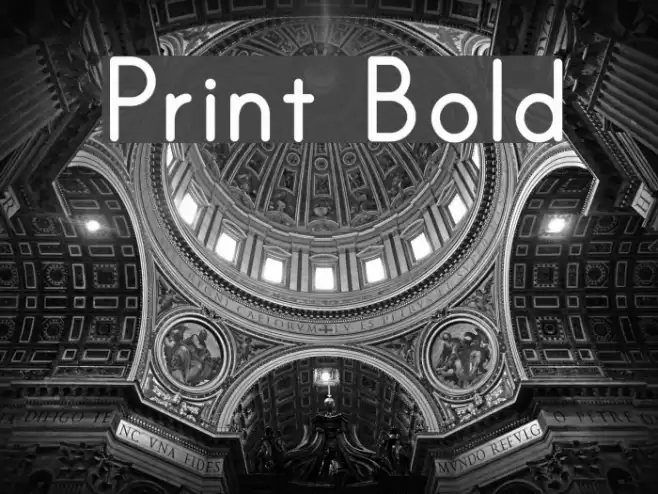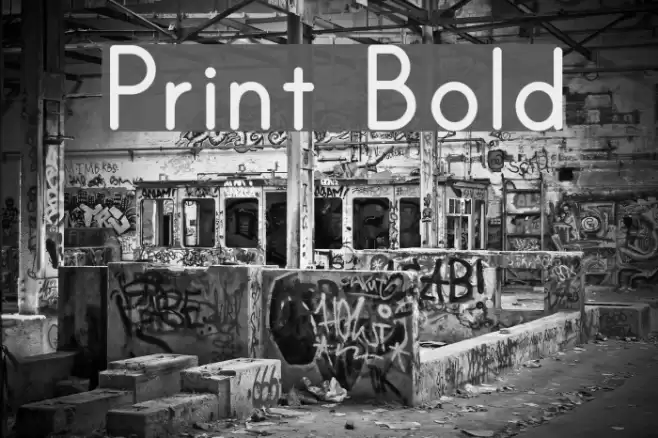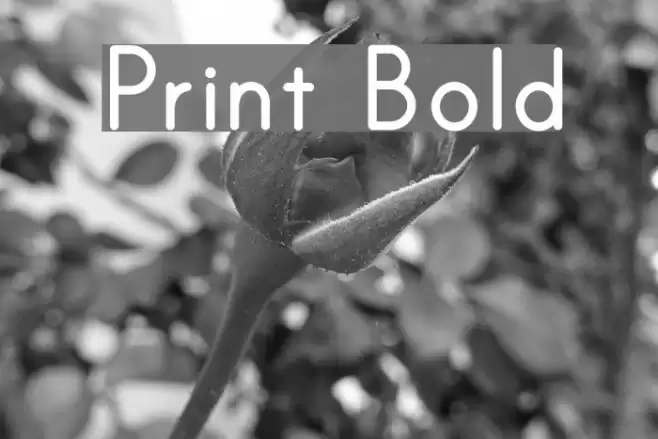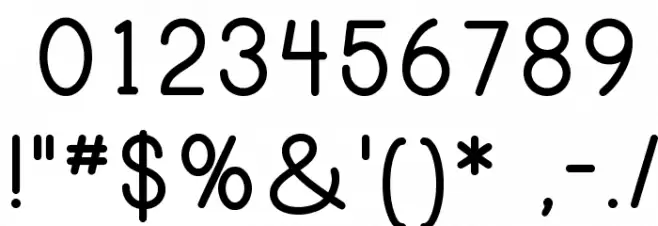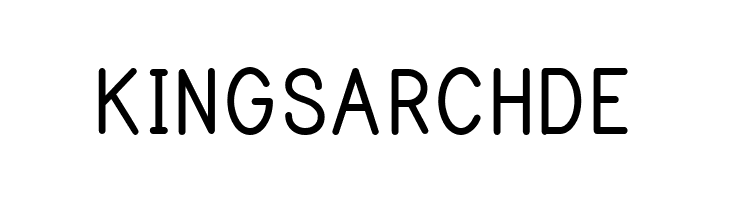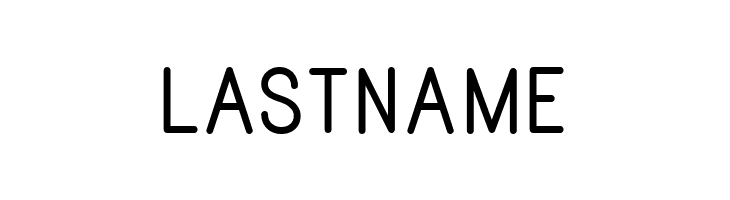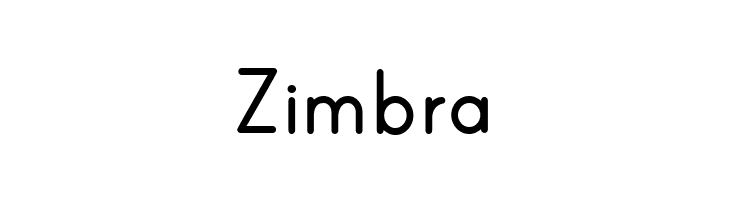
Print Bold Font
Print Bold Description
This font features a clean and straightforward design with rounded edges, giving it a friendly and approachable appearance. The characters are evenly spaced, contributing to its readability. The uppercase and lowercase letters maintain a consistent style, with a slight increase in thickness that adds to its boldness. The numerals are clear and distinct, ensuring easy recognition. Special characters are well-integrated, maintaining the overall aesthetic. This font's simplicity and clarity make it versatile for various applications.
A bold, rounded font with a clean and approachable design from Uncategorized fonts.
- Proposed Projects: Ideal for branding, signage, children's books, and digital interfaces where clarity and friendliness are desired.
- Use Case: Headlines, Logos, Signage